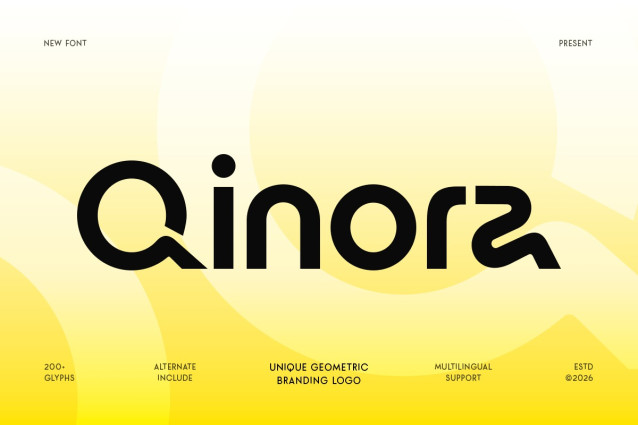
Qinora Font
Qinora Font— Bold Logo Tech Font is a powerful display font designed to deliver strong visual impact and a futuristic, technological presence. Inspired by modern tech branding and digital innovation, Qinora is designed for projects that require boldness, clarity, andavant-garde design.
With its bold strokes, precise geometry, and solid structure, Qinora creates a commanding typographic voice while maintaining legibility. The design emphasizes strength and precision, making it ideal for logo creation and high-visibility branding applications.